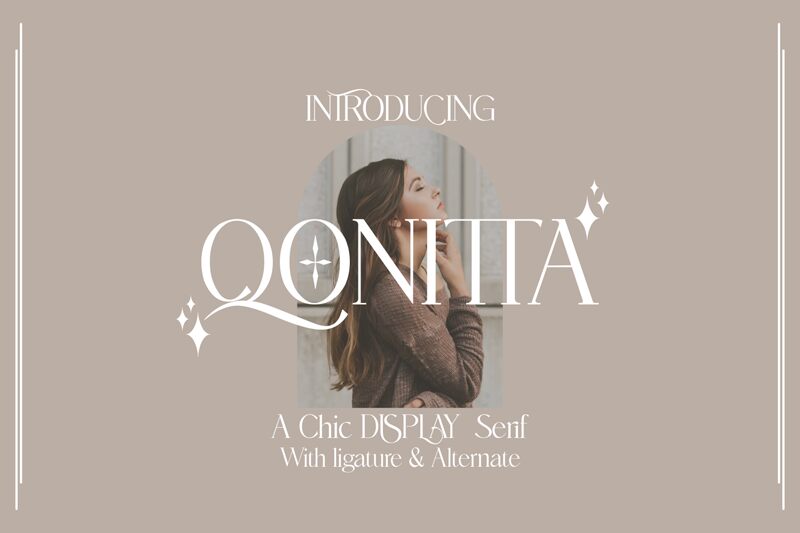
Qonitta font, designed by Zamjump, is a captivating serif font that exudes sophistication and elegance. With its bold yet graceful curves, Qonitta stands out as a statement piece in any design project. Its striking aesthetic combines classic serif elements with contemporary flair, making it perfect for high-impact headlines and polished editorial layouts.
The unique blend of traditional and modern touches makes Qonitta ideal for branding materials that require a touch of luxury and professionalism. Whether you're crafting invitations or creating eye-catching posters, this free font offers versatility without sacrificing style.
Qonitta — Schriftpräsentation